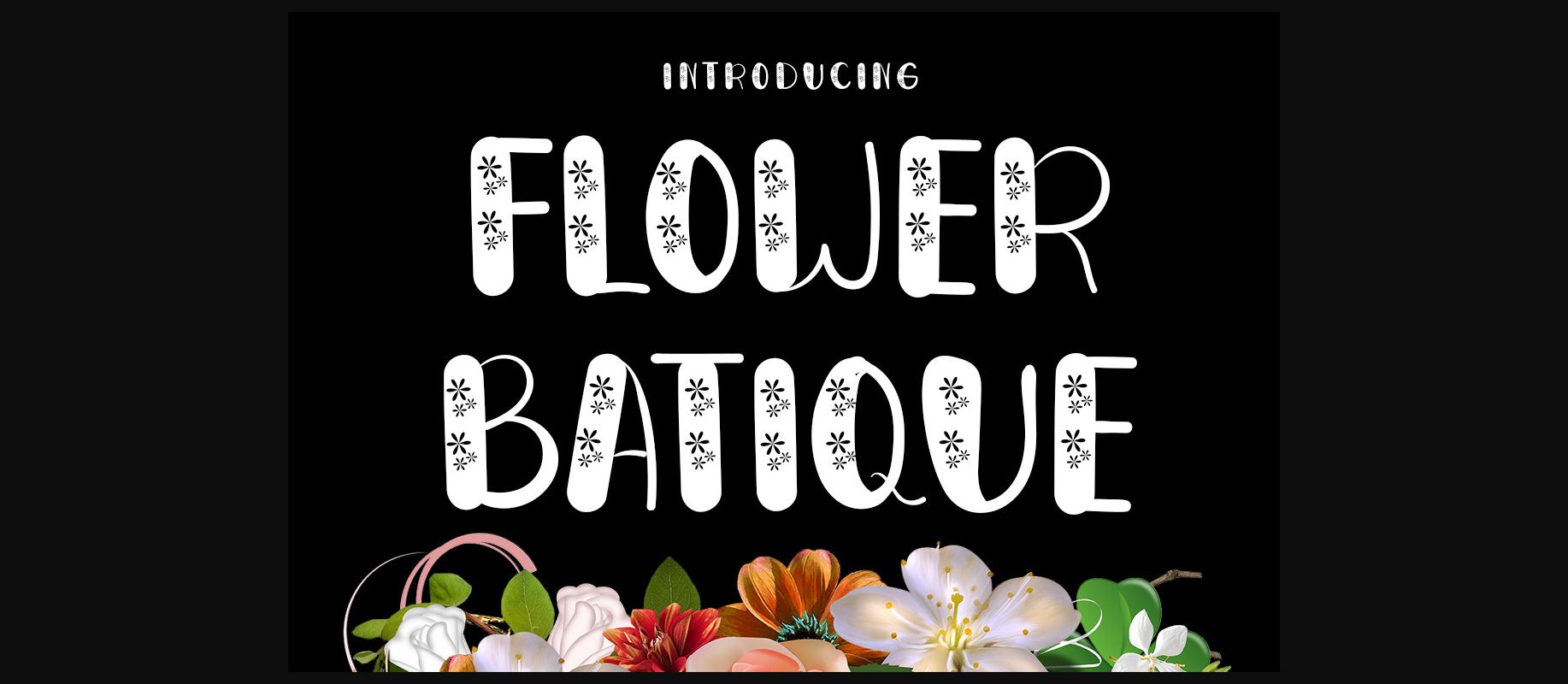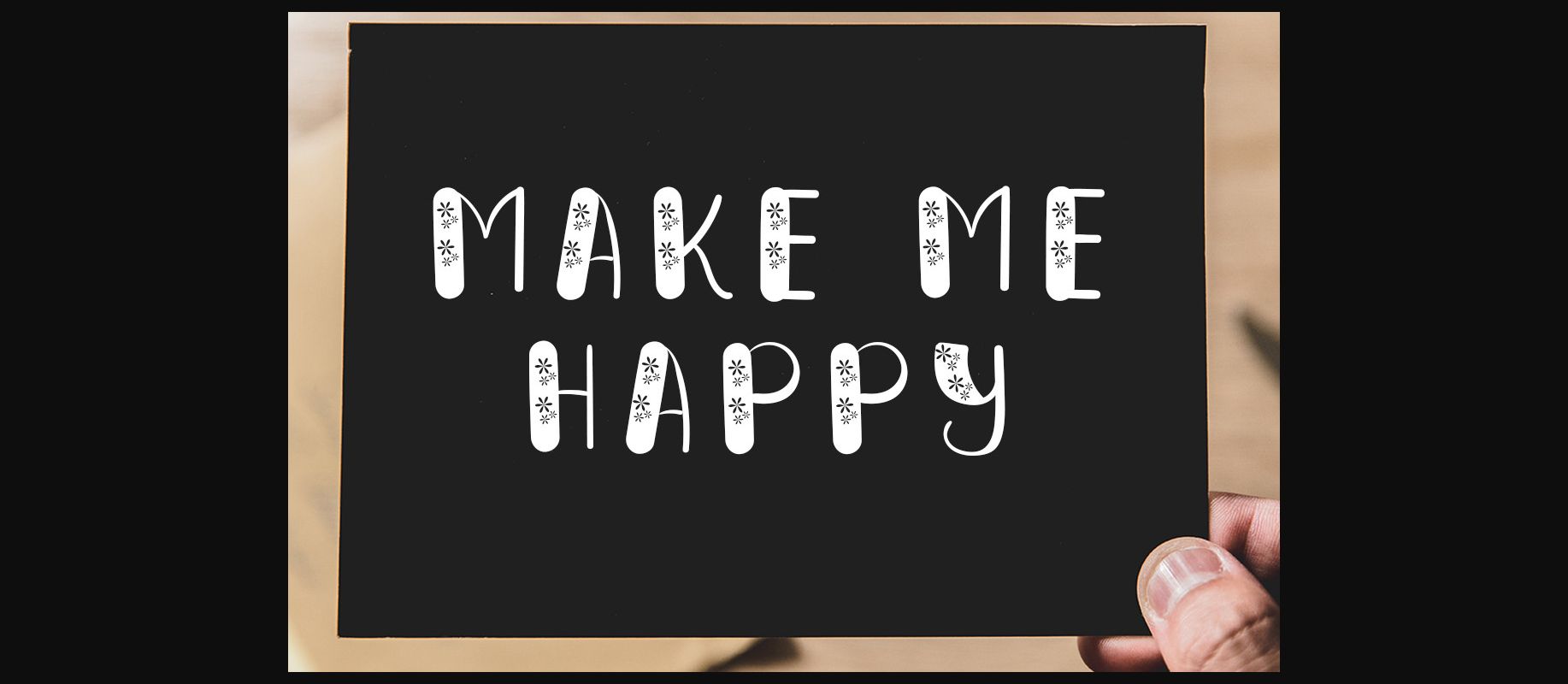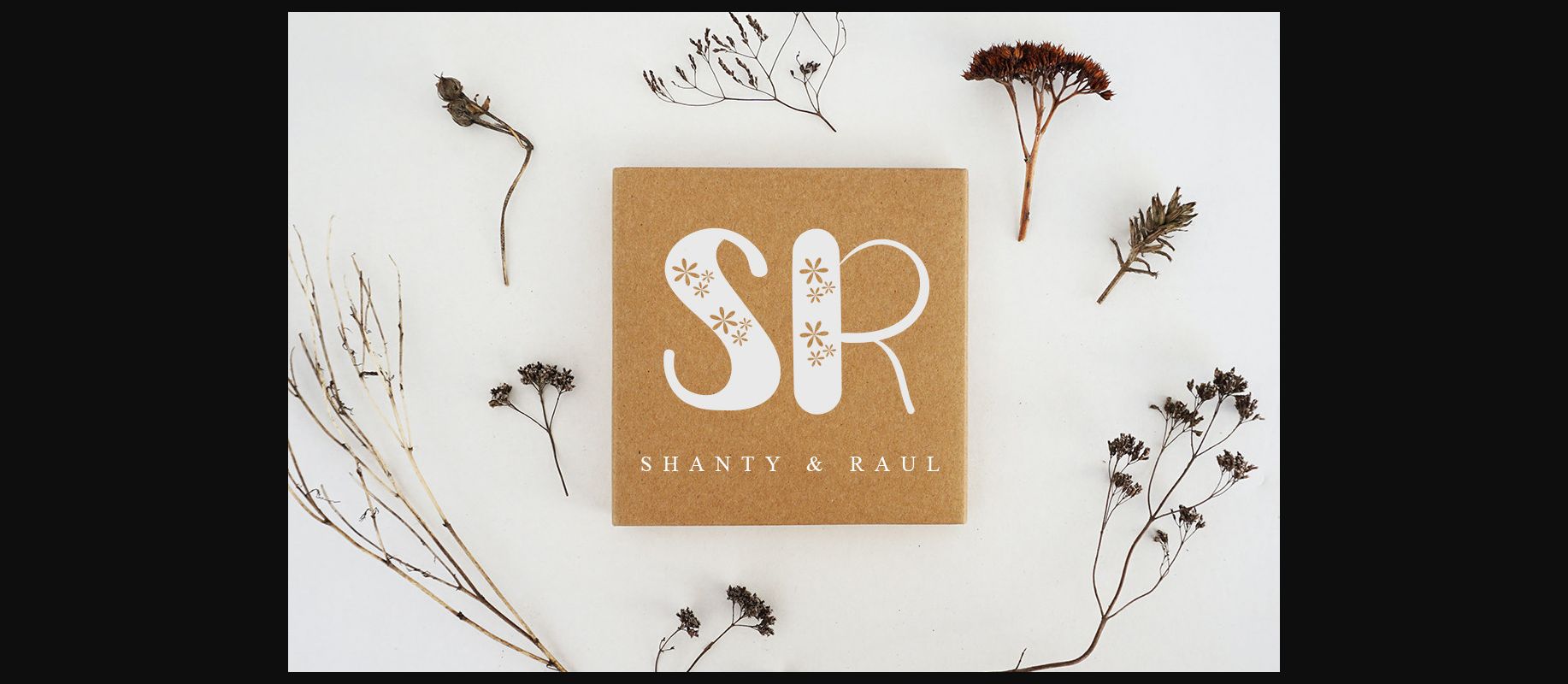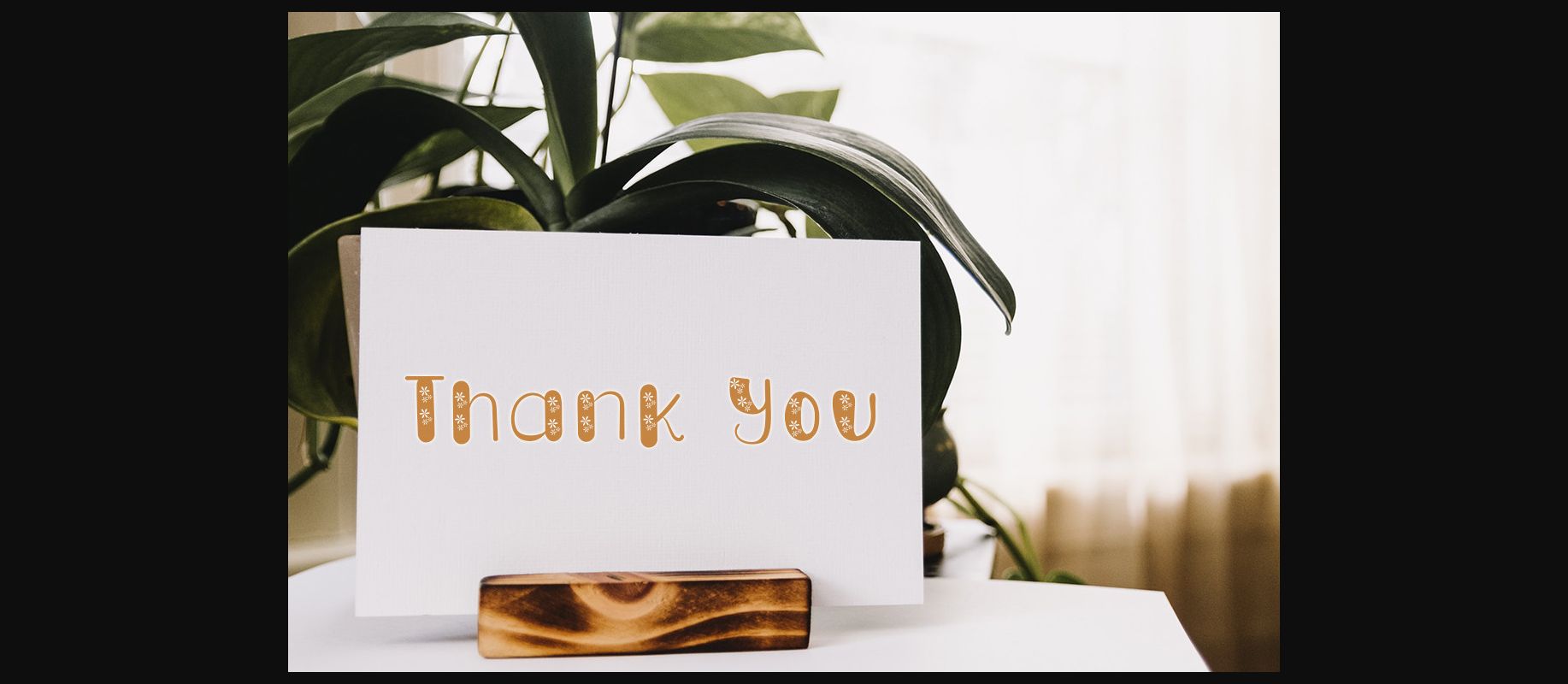
Flower Batique Font
About Flower Batique Font
Flower Batique is a cool and uniquely designed decorative font. It embodies playfulness and authenticity and is the perfect choice for any children activity or school project.